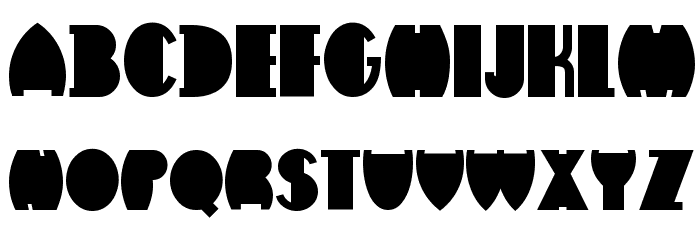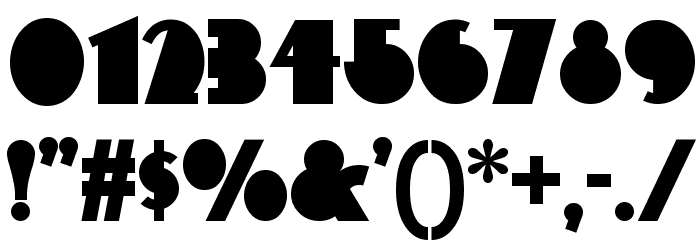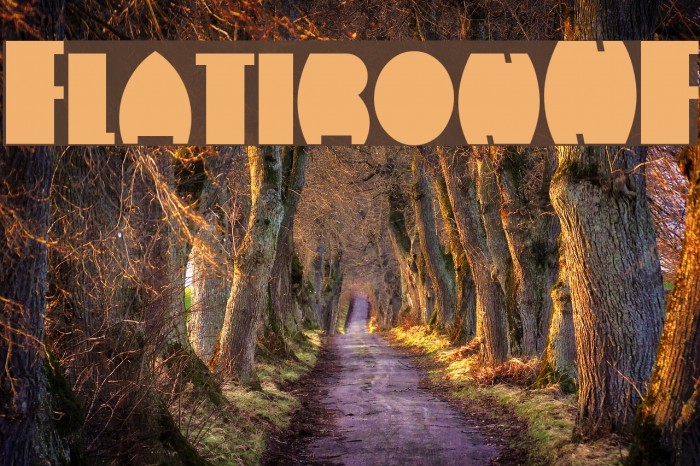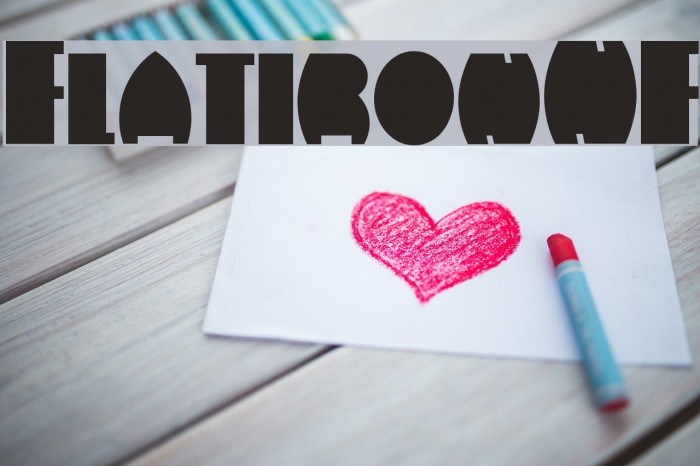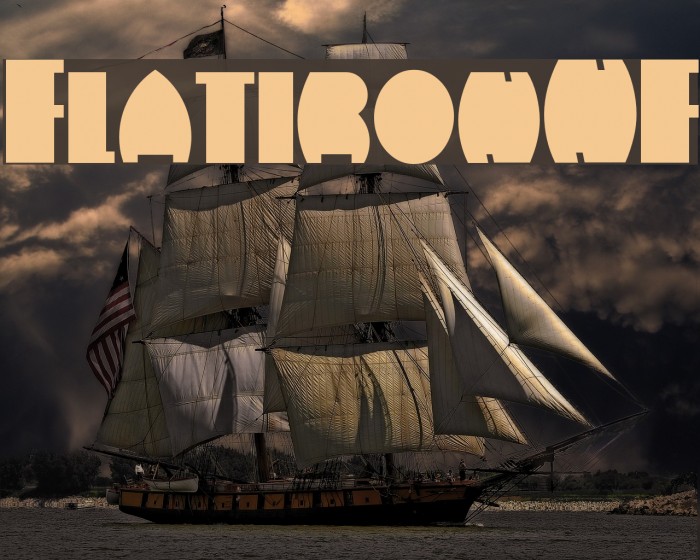
FlatironNF Font
This bold and striking font features a unique geometric design with high contrast and thick strokes. The characters are crafted with a modern flair, incorporating sharp angles and rounded edges that create a sense of movement and energy. The uppercase and lowercase letters maintain a consistent style, while the numerals and special characters complement the overall aesthetic. The font's boldness makes it ideal for attention-grabbing headlines and impactful designs.
A bold, geometric font with high contrast and modern design.
- Proposed Projects: Ideal for posters, logos, branding, and any project requiring a strong visual impact.